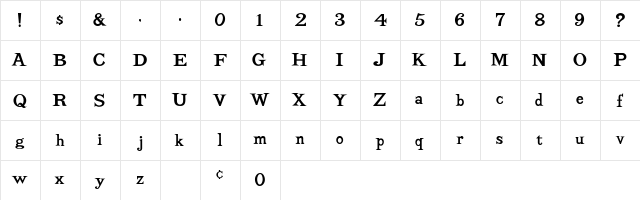
BaselineSSK Regular
Design Context for BaselineSSK Typeface
BaselineSSK takes a measured approach to typography — its balanced proportions and neutral character make it a reliable workhorse for both digital and print work.